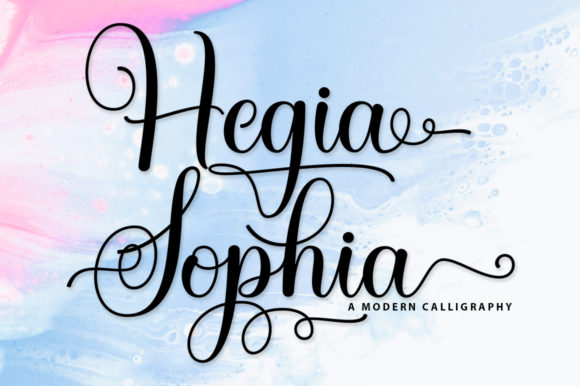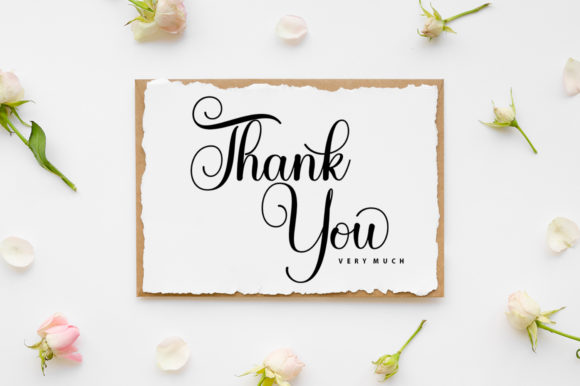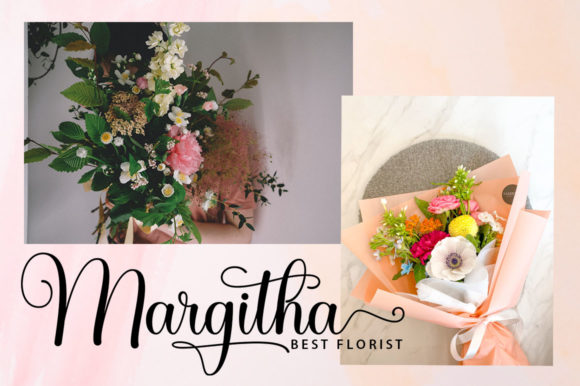
About Hegia Sophia Font
Hegia Sophia is a delicate and elegant handwritten font. It looks ravishing on a variety of designs requiring a personalized style, such as wedding invitations, thank you cards, weddings, greeting cards, logos and so on. This font is PUA encoded which means you can access all of the glyphs and swashes with ease!